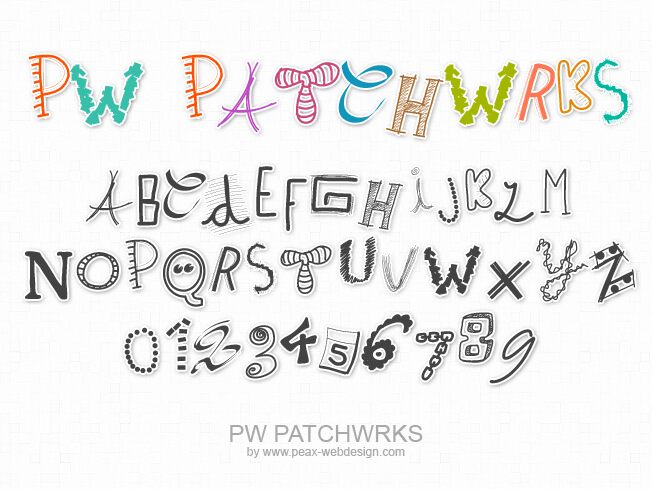
PWPatchwrks
"PW Patchwrks" is a captivating display font that exudes a distinctive decorative style. Designed by Peax Webdesign, this font boasts a whimsical, organic aesthetic, with its playful letterforms and intricate, interlocking patterns. The irregular, stitched-together appearance of the characters lends an artisanal, handcrafted feel, perfect for adding a touch of rustic charm to various design projects.
Its versatility shines through, making it an excellent choice for headlines, logos, and other attention-grabbing elements. Whether you're crafting a vintage-inspired brand identity, designing eye-catching event materials, or seeking to infuse your work with a unique, handmade quality, "PW Patchwrks" is a font that can elevate your designs with its captivating, one-of-a-kind personality.